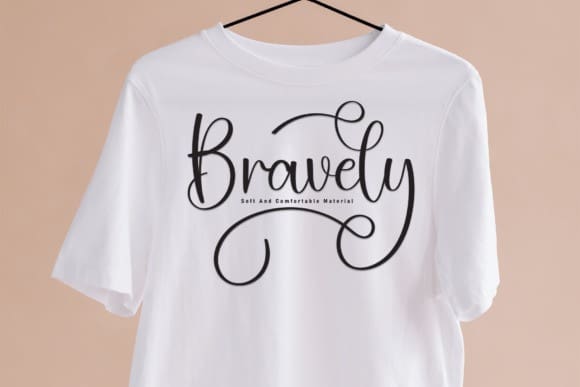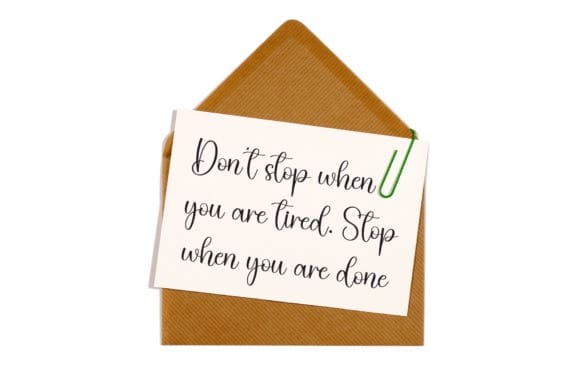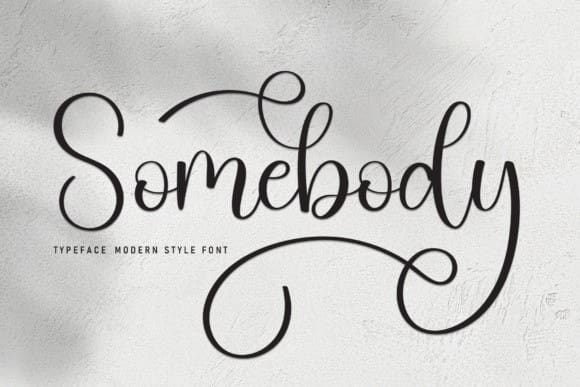
Somebody Script Typeface
Somebody Script Typeface is a sweet and friendly handwritten font. Its natural and unique style makes it incredibly fitting to a large pool of designs. The only limit is your imagination!